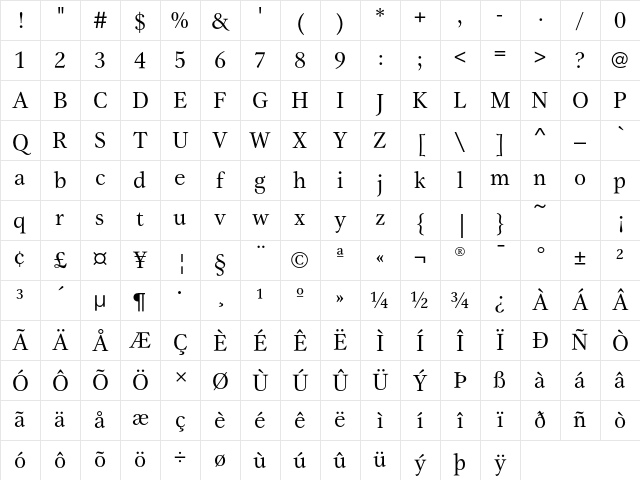
Complete GammaEF Book glyph index. Displaying only characters natively supported by GammaEF Book font.
GammaEF is a composed and adaptable typeface that performs quietly and consistently across a wide range of design contexts.